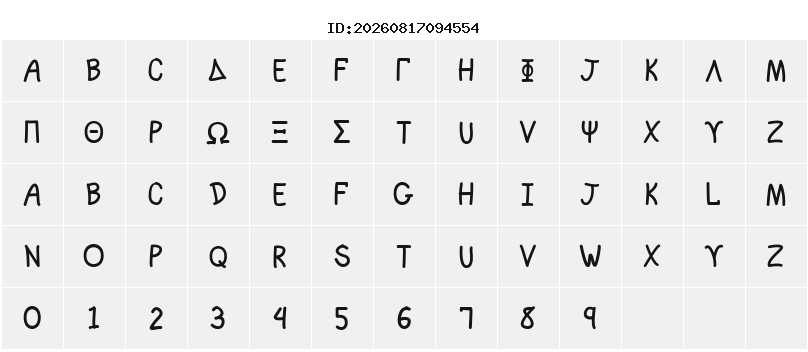
About Sorority Lane.ttf
Sorority Lane.ttf is a modern, elegant sans-serif font designed for ultimate readability and visual harmony. Perfect for branding, headlines, web design, and print materials.